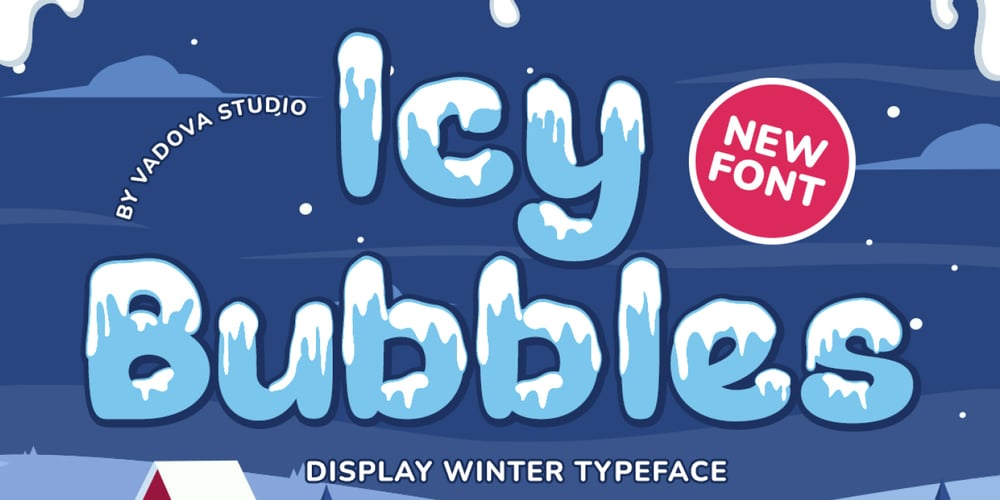
Icy Bubbles
Icy Bubbles font
Icy Bubbles Font Family was designed by published by Vadova Std. Icy Bubbles contains 1 styles and family package options. Elevate your designs with Ice Bubbles Creative Font a font perfect for adding elegance and style to your projects. Whether it’s for quotes, logotypes, magazine headers, or more, this versatile typeface ensures your text stands out beautifully.